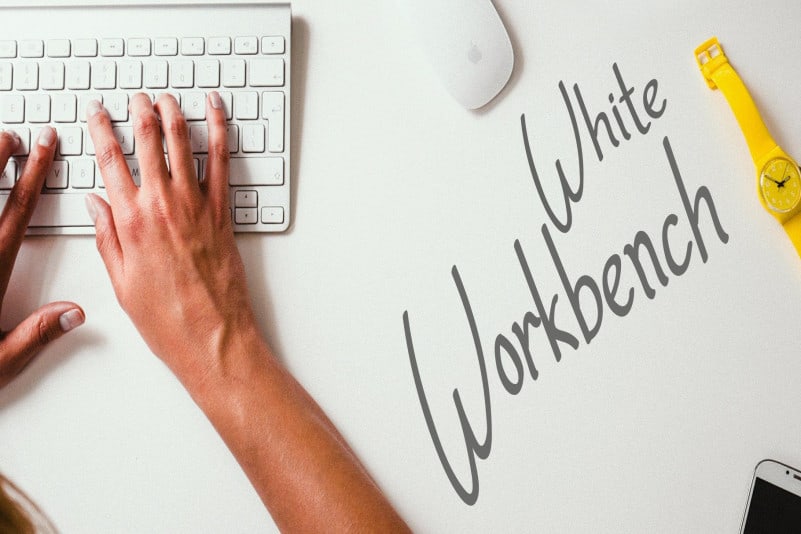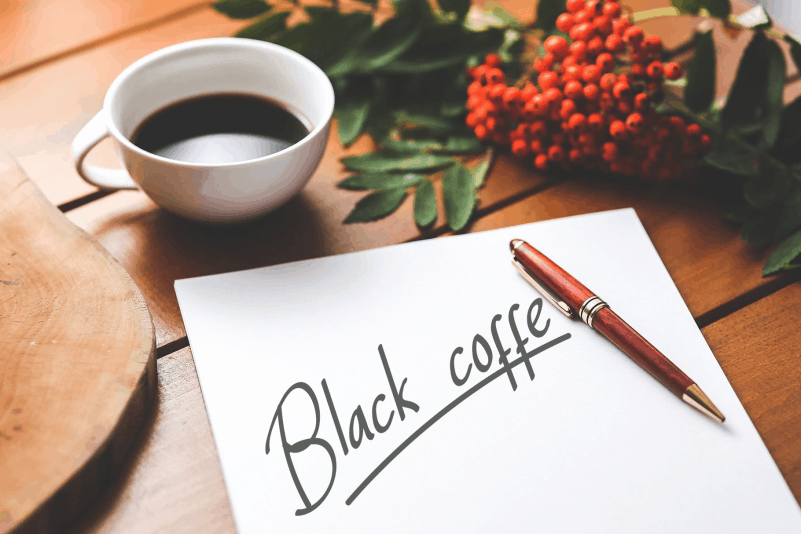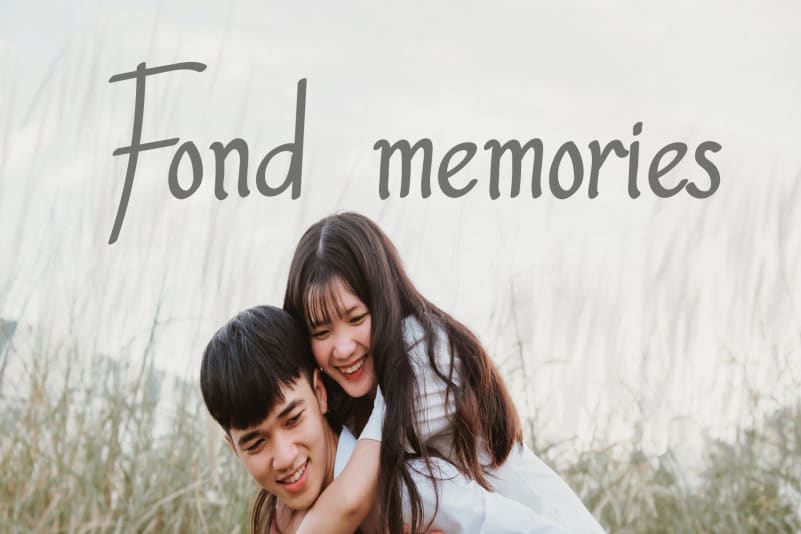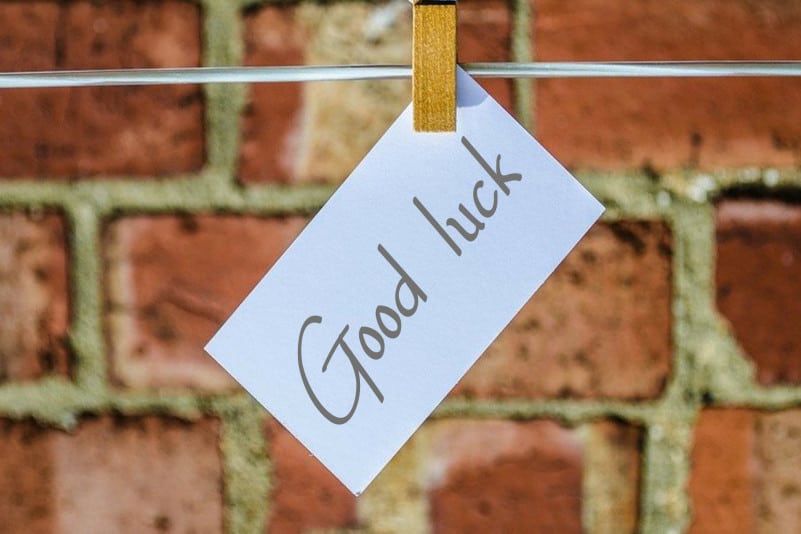
AshWord Script Font
AshWord Script Font is a modern handwritten font that is readable, bold and stylish. It is defined by smooth curves and is perfect for fashion branding or editorial designs. Add it confidently to your projects, and you will love the results.